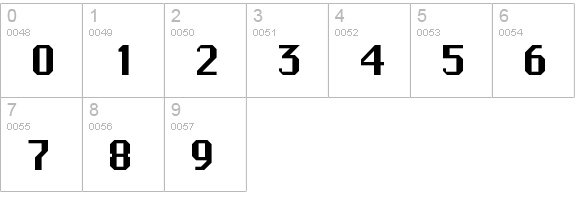
Ambush-Extended Normal is the standard, neutral, extended-width variant in the Ambush typeface family \xE2\x80\x94 well suited to general body text, paragraphs, and standard typographic work.
Ambush-Extended Normal font is a versatile and modern typeface that exudes a sense of strength and elegance. With its elongated and sleek design, this font is perfect for creating eye-catching headlines, titles, and branding materials. The bold and sharp characteristics of Ambush-Extended Normal make it stand out in both print and digital formats, adding a touch of sophistication to any project. What's even better is that Ambush-Extended Normal font is available for free download at FontsMarket.com. Whether you're a designer looking to elevate your work or a business owner seeking a distinctive font for your branding, Ambush-Extended Normal is a fantastic choice that won't cost you a penny. Download it today and start creating stunning designs with this remarkable typeface.